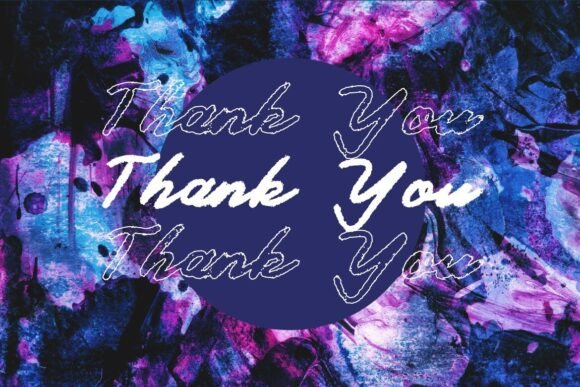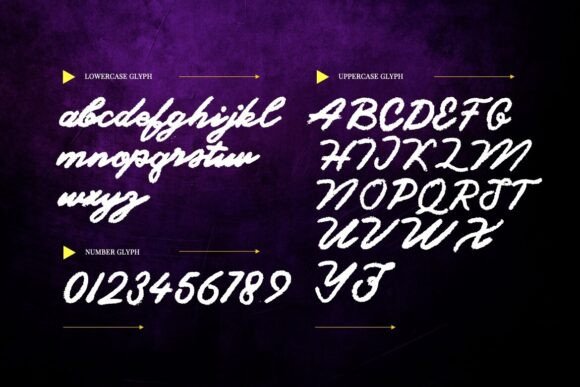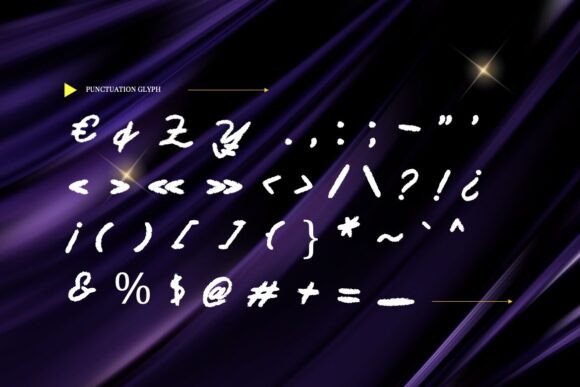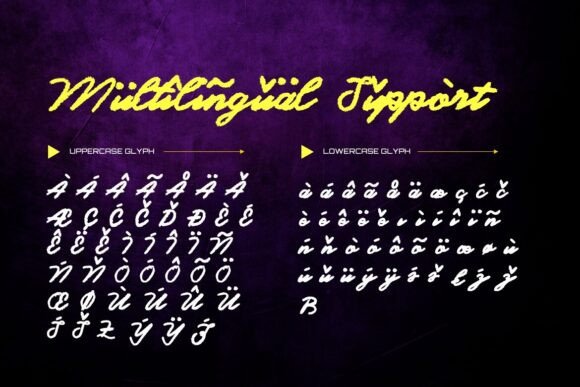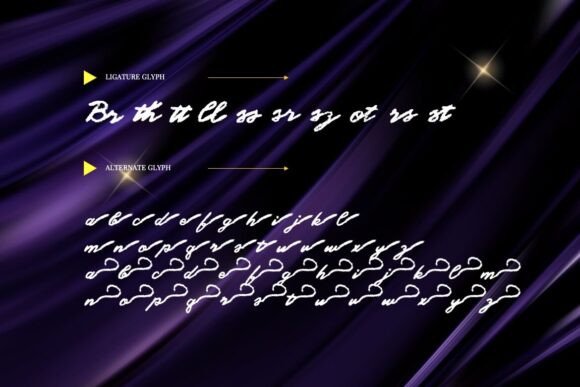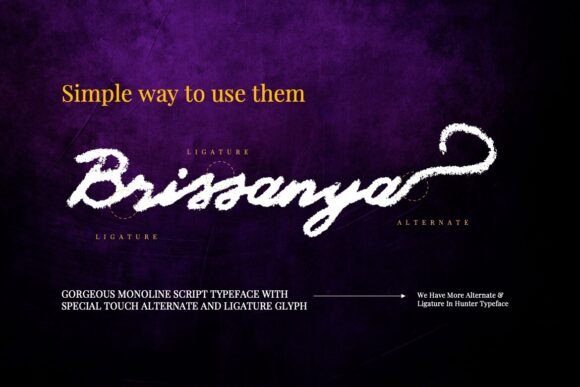
Unlocking Creative Potential with Brissanya Font and Textured Brush
For designers and crafters looking to elevate their artwork, the Brissanya Font and its accompanying Textured Brush are game-changers. This dynamic duo offers a unique combination of style and texture, allowing artists to add depth, dimension, and a touch of personality to their creations. In this article, we’ll dive into the world of Brissanya, exploring its features, benefits, and applications, as well as provide tips on how to make the most of this innovative tool.
What is Brissanya?
Brissanya – Textured Brush is a specially designed paintbrush that creates textured effects on artwork. Its distinctive bristles are crafted to add a rough, organic look to paintings, making it perfect for artists seeking to infuse their designs with a bit of flair and texture. Whether you’re working on a digital project or a traditional art piece, Brissanya is the ideal companion for those who want to push the boundaries of creativity.
Key Features of Brissanya Textured Brush
- Unique Bristles: The specially designed bristles of the Brissanya brush are engineered to create a textured, rough effect on artwork, adding depth and dimension.
- Versatility: Suitable for use with a variety of mediums, including paint, ink, and digital drawing tools, Brissanya adapts to your preferred artistic method.
- Expressive Freedom: With Brissanya, artists have the freedom to experiment with different techniques and effects, making each piece truly unique.
So, why should designers and crafters consider adding Brissanya to their toolkit? Here are just a few benefits:
- Enhanced Creativity: The textured effects achieved with Brissanya encourage experimentation and creativity, helping artists to explore new styles and techniques.
- Time Efficiency: Achieving textured effects manually can be time-consuming. Brissanya streamlines this process, allowing for quicker results without compromising on quality.
- Professional Results: The distinctive texture produced by Brissanya can elevate artwork from good to great, giving designers and crafters a professional edge.
Applications of Brissanya
The versatility of Brissanya means it can be used across a range of artistic projects, including:
- Digital Art: Pair Brissanya with digital drawing tablets for unique textures in digital art.
- Traditional Painting: Use Brissanya with acrylics, oils, or watercolors for added texture in traditional artworks.
- Crafting: From scrapbooking to mixed media crafts, Brissanya adds an interesting element to handmade projects.
Tips for Using Brissanya
To get the most out of Brissanya, consider the following tips:
- Experiment with Mediums: Don’t be afraid to try Brissanya with different paints, inks, or digital brushes to discover a range of textures.
- Play with Pressure: Varying the pressure on the brush can produce different effects, from light, whispery textures to deep, impasto styles.
- Combine Techniques: For truly unique artwork, combine Brissanya’s textured effects with other artistic techniques, such as layering or glazing.
| Font Name | Brissanya Font |
| Author | Yumnacreative |
Brissanya – Textured Brush is more than just a tool; it’s a gateway to new creative possibilities. By incorporating Brissanya into their workflow, designers and crafters can add a unique touch to their artwork, standing out in a crowded creative landscape. Whether you’re a seasoned artist or just starting out, Brissanya invites you to explore, experiment, and elevate your art to new heights.